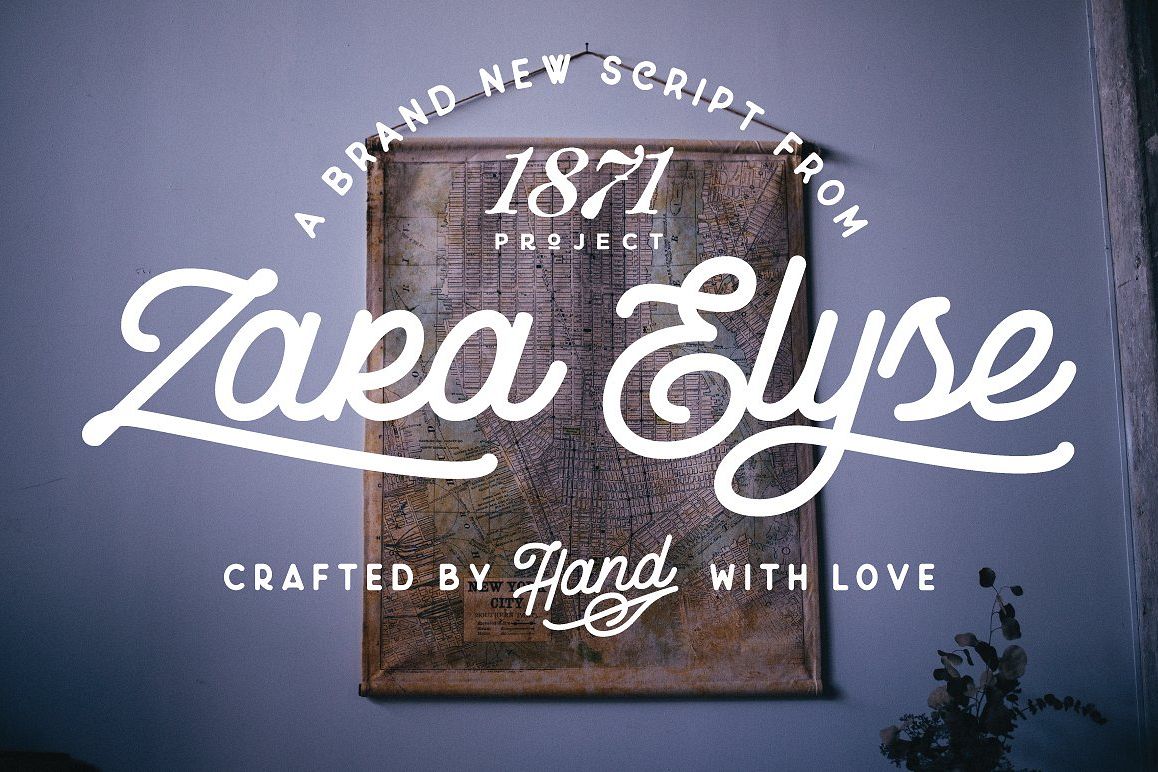
Zara Elyse
Zara Elyse is a hand-drawn mono-line script from The 1871 Project! It comes with 2 weights and 4 different styles. It contains a ton of different alternates you can use by accessing the glyphs panel inside adobe illustrator or photoshop. I have personally used this script numerous times on my own client projects and decided to turn it into a fully functional typeface. This font will give your next project a unique hand-drawn look that your clients will love.
• 4 Unique Styles
• 2 Weights
• Unique Hand-Drawn Font